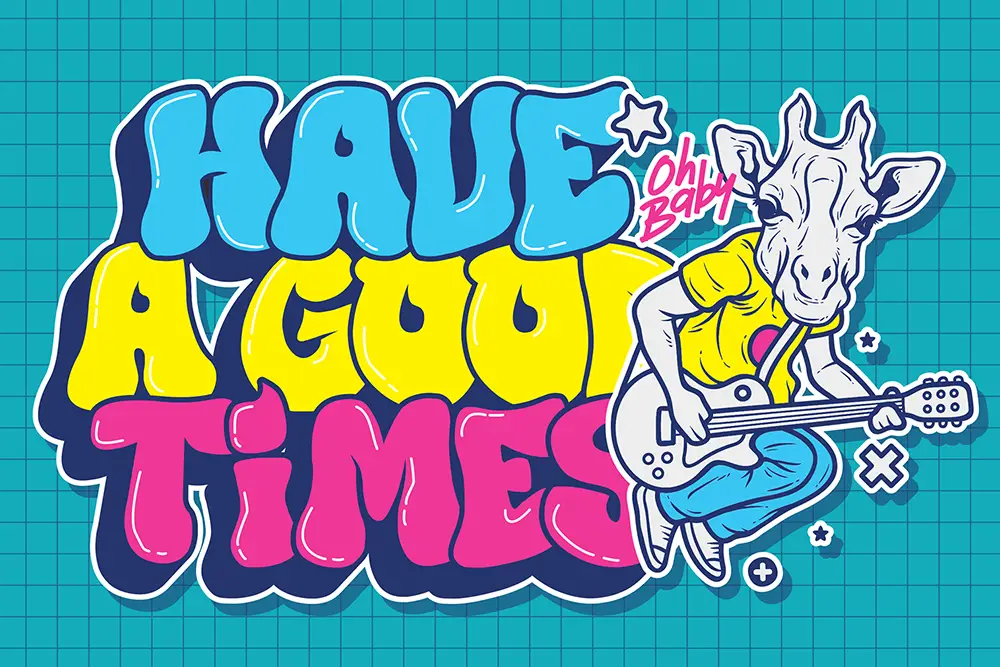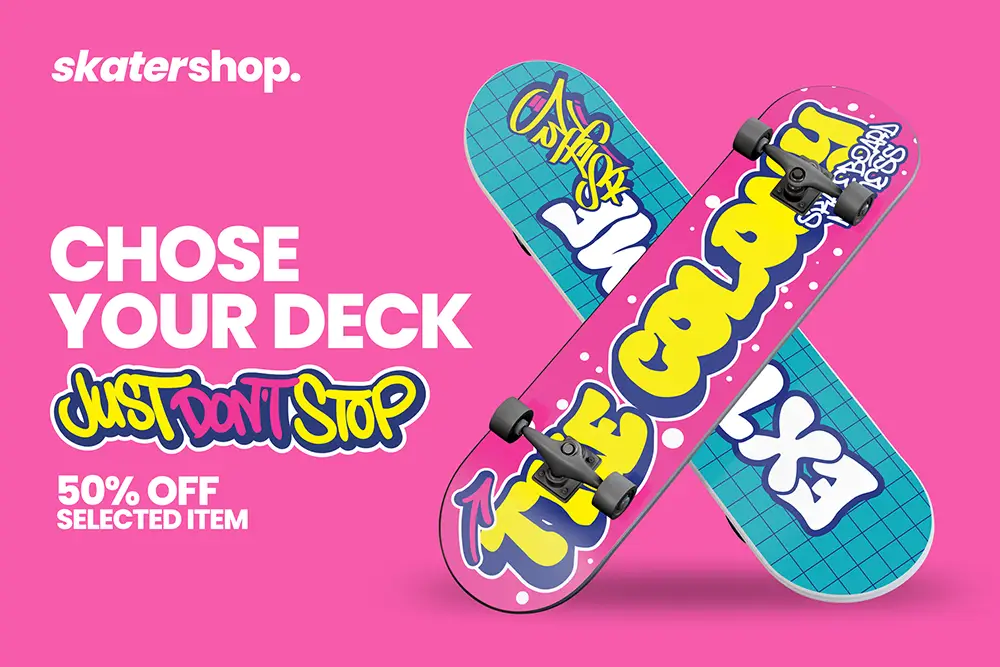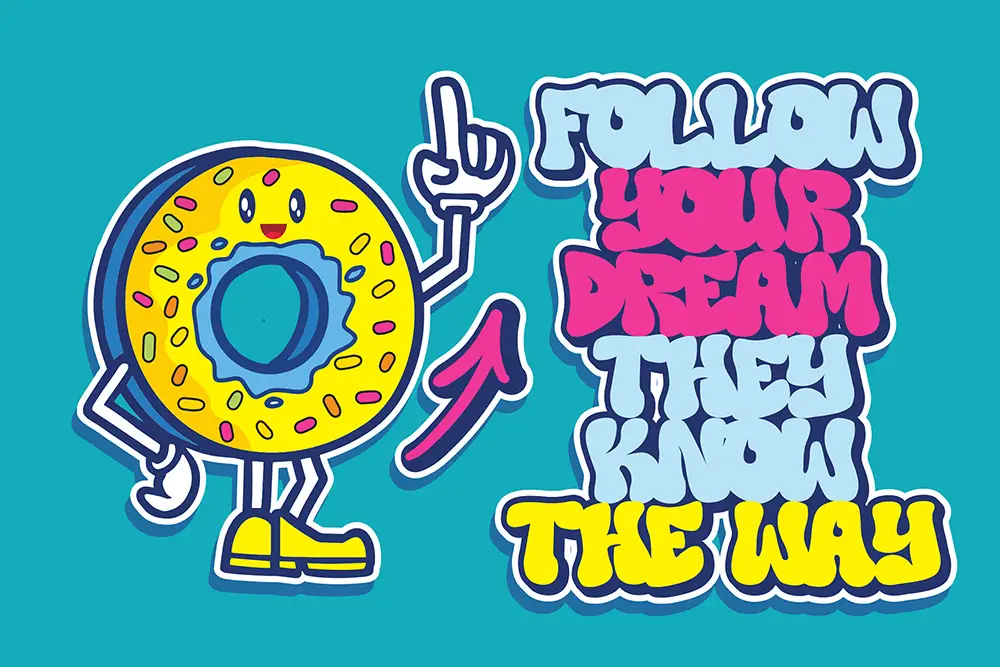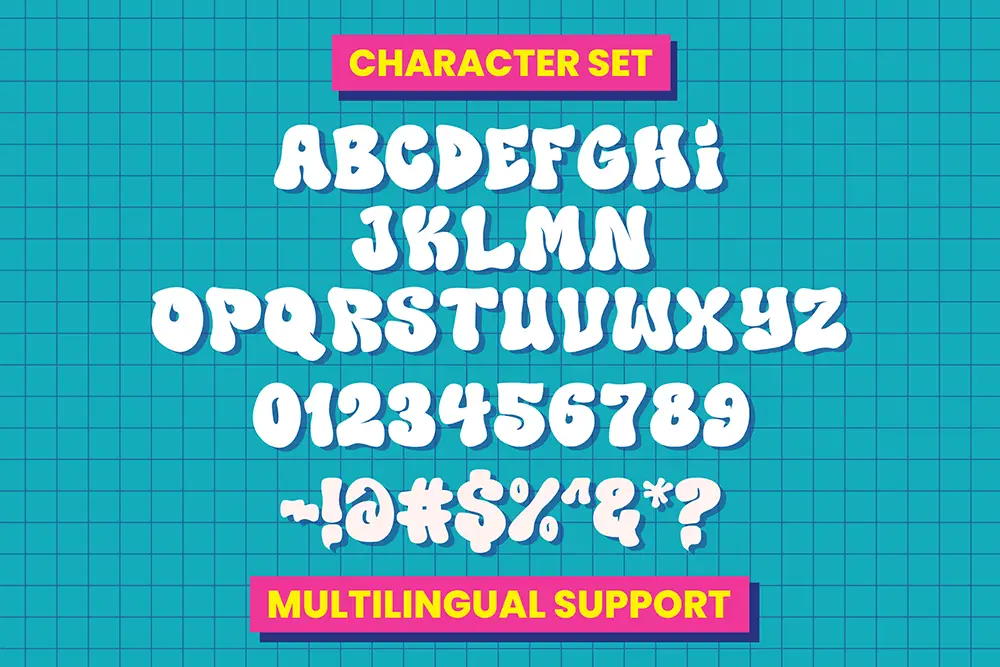
Mock Bear – Unique Display Font for Bold and Modern Design
Typography is one of the most important elements in visual communication. A strong typeface can transform a simple design into something unforgettable. That’s why Mock Bear – Unique Display Font was created: a bold, allcaps font that stands out with distinctive shapes and a powerful presence. With multilingual support and complete file formats, this unique display font is the perfect tool for modern branding, logos, posters, and creative projects.
Unique Display Font with Allcaps Power
Mock Bear is designed entirely in allcaps, giving every word a bold and confident look. This unique display font features sharp angles, striking proportions, and creative letterforms that grab attention instantly. The allcaps construction makes it ideal for headlines, covers, and branding projects that require maximum visibility.
If you want your designs to carry strength and originality, Mock Bear is the unique display font that delivers impact without compromise.
Key Features of Mock Bear – Unique Display Font
Professional designers need more than just style. Here are the features that make Mock Bear a must-have:
- Allcaps Design: Every letter is bold, modern, and uniform.
- Multilingual Support: Extended Latin set for global usability.
- Unique Display Style: Sharp and creative shapes for standout typography.
- Perfect for Headlines & Logos: Bold presence designed for display use.
- Versatile Usage: Works in posters, branding, packaging, and digital media.
Why Designers Love Mock Bear
Designers across industries love Mock Bear because it provides everything they need in a unique display font. It is strong, modern, and practical.
- Distinctive Look: Each glyph is crafted to stand out, ensuring your project is never generic.
- Universal Appeal: The allcaps form makes it suitable for global campaigns.
- Creative Pairing: Works beautifully with contrasting fonts like Bolde Powerful Sans Serif and Street Rats Monoline Graffiti Font.
- Professional Impact: Designed for logos, posters, and branding where authority matters.
Mock Bear for Logos and Branding
When it comes to logos and corporate identity, strength and memorability are key. Mock Bear’s bold allcaps form makes it a unique display font perfect for creating impactful logos. Startups, tech companies, creative agencies, and lifestyle brands will benefit from its ability to convey both modernity and authority.
Pair Mock Bear with Bolde for a clean, professional vibe or with Street Rats to add raw, urban energy to your brand.
Mock Bear for Posters and Headlines
Big headlines require fonts with presence. Mock Bear was designed for visibility and impact, making it one of the most effective unique display fonts for posters, banners, and advertising campaigns. Its sharp letterforms cut through noise, ensuring your message is noticed immediately.
Whether it’s for an event, a bold marketing campaign, or creative promotional material, Mock Bear brings energy and uniqueness to every word.
- Character Set: Allcaps letters, Numbers, Punctuation
Why Mock Bear is the Unique Display Font You Need
Typography trends are shifting toward bold, experimental, and distinctive fonts. Mock Bear represents this movement perfectly. As a unique display font, it balances creativity with usability, offering a typeface that’s both memorable and professional.
Its allcaps design ensures a strong impact, while multilingual support makes it suitable for international projects. Combined with fonts like Bolde and Street Rats, it becomes even more versatile, allowing designers to create unique visual systems.
Mock Bear – Unique Display Font is more than just a typeface; it’s a design tool that empowers you to create unforgettable visuals. With its bold allcaps style, multilingual support, and professional file formats, it’s ideal for designers who want to make a statement.
Don’t let your designs blend into the background. Choose Mock Bear, pair it with fonts like Bolde or Street Rats, and see your branding, posters, and logos come alive.
Bring strength, originality, and style into your work with Mock Bear today.